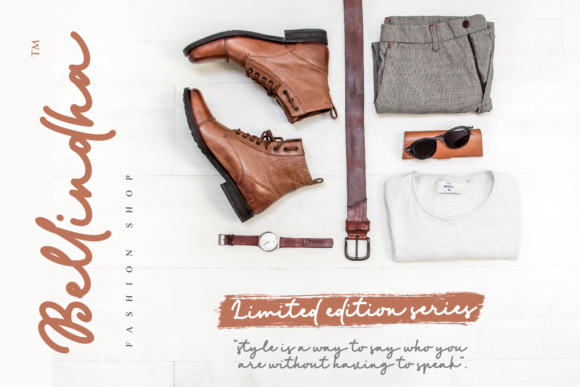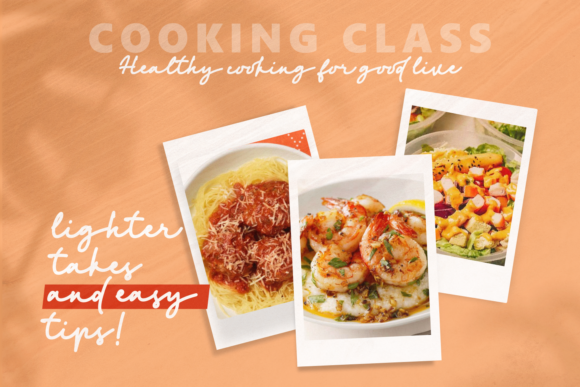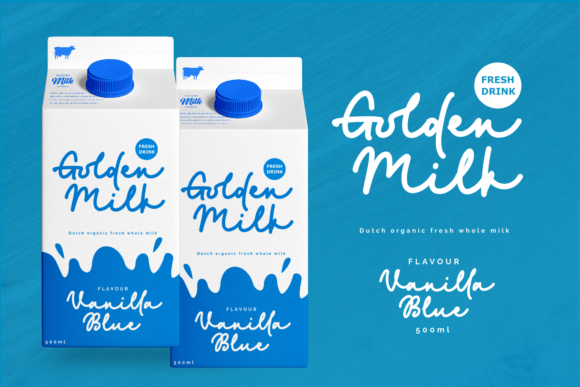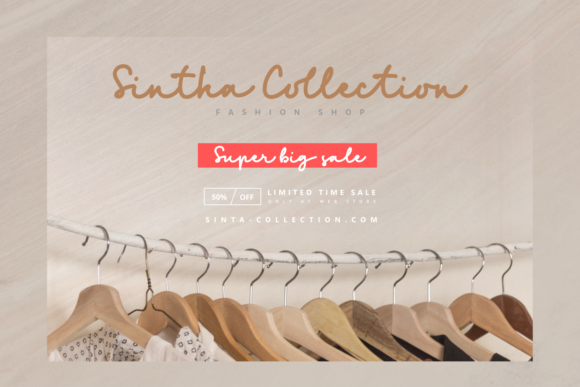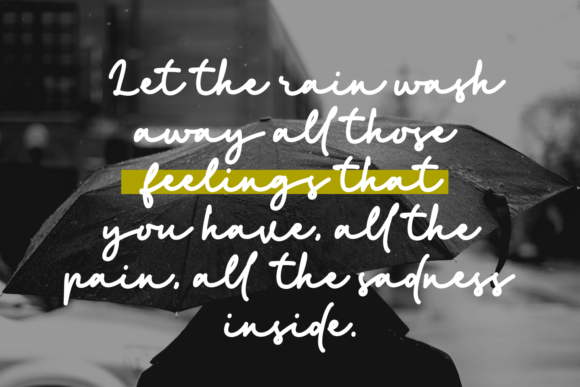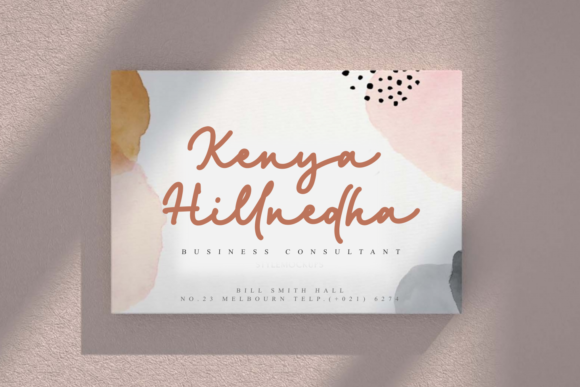
Introduction to Golden Blast Font
Golden Blast is a dazzling script font.
This font is neatly crafted and highly detailed Whatever the topic, this font will be a wonderful asset to your font library, as it has the potential to enhance any creation.
Key Features of Golden Blast Font